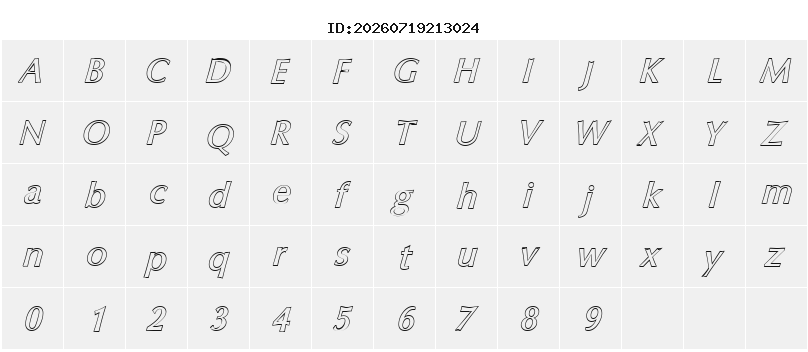
EricBeckerOutline-Medium Preview
• Font Name: EricBeckerOutline-Medium
• Font ID: Alts:EricBeckerOutline-Medium-Italic
• Full Font Name: EricBeckerOutline-Medium-Italic
• Version: 1.0 Wed May 03 21:20:47 2000
• PostScript Name: EricBeckerOutline-Medium-Italic
About EricBeckerOutline-Medium.ttf
EricBeckerOutline-Medium.ttf is a modern, elegant sans-serif font designed for ultimate readability and visual harmony. Perfect for branding, headlines, web design, and print materials.